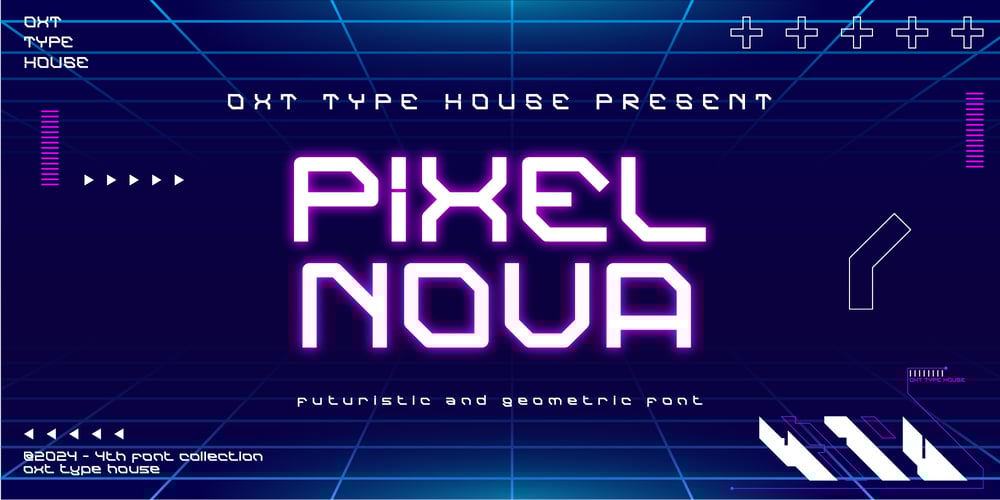
Pixel Nova
Pixel Nova font
Pixel Nova Font Family was designed by Oksta Aziz Rachmaddan and published by Oxt Type House. Pixel Nova contains 1 styles and family package options. Introducing PIXEL NOVAA futuristic and geometric font from OXT Type House that is ready to bring your design into a stylish digital era! With its bold lines and precise geometric shapes, PIXEL NOVA is perfect for technology-themed projects, video games, sci-fi, and branding with a modern feel.Why is PIXEL NOVA Right for You?PIXEL NOVA provides a unique futuristic look. This font is perfect for poster designs, movie titles, cyber-themed websites, logos, or even to enliven the aesthetics of product branding that wants to appear different and modern.Don’t miss the opportunity to add PIXEL NOVA to your design font collection. Visit the link in our Instagram highlights for more information, or contact us directly via DM for questions and orders.Come on, improve your design aesthetics with PIXEL NOVA!